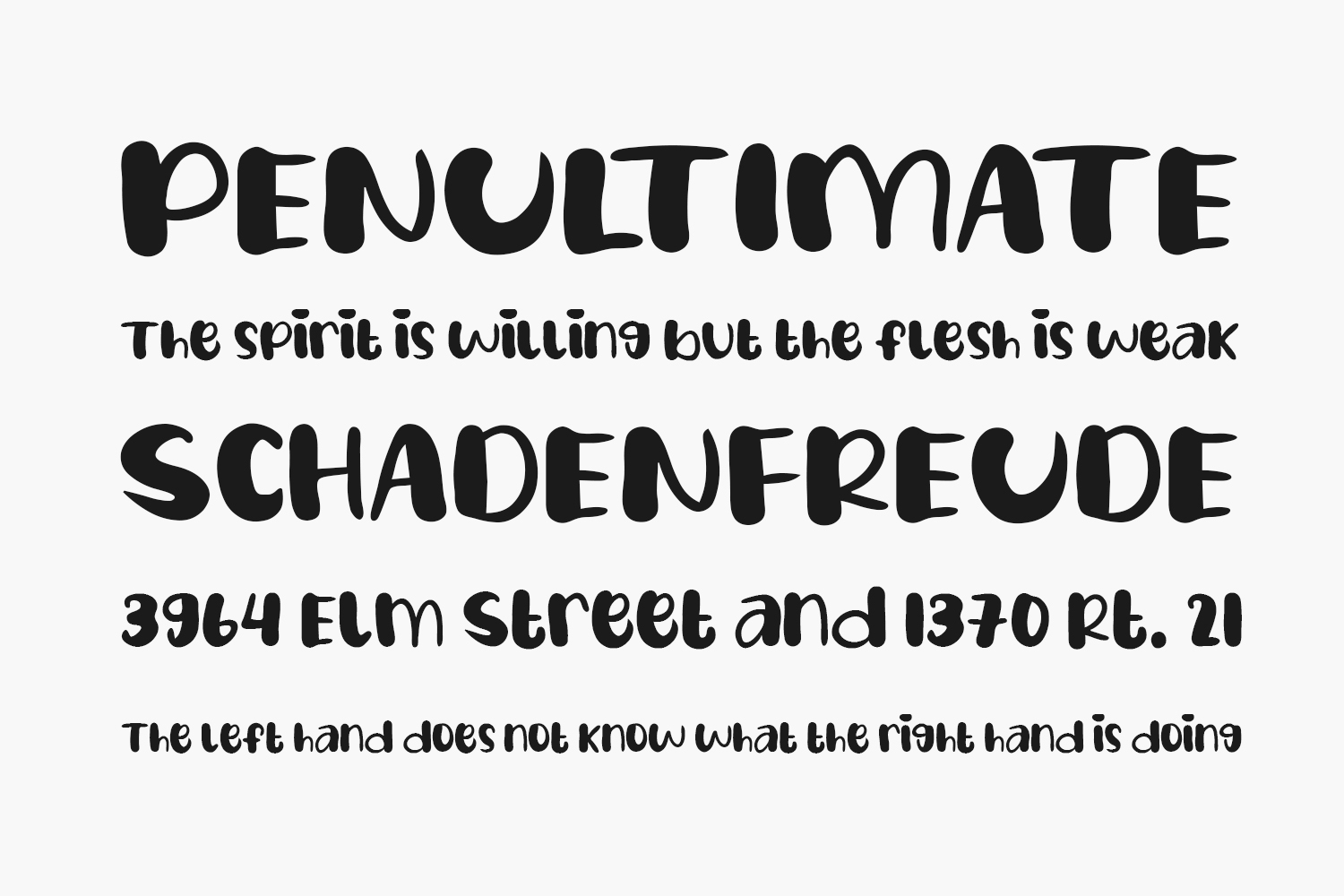
Oktober
Introducing Oktober Free Font, a delightful and approachable handwritten font. This font exudes warmth, romance, and joy, infusing each of your project ideas with artistic flair. With Oktober, your creations will transform into captivating works of art. Unleash your creativity and have a blast exploring the myriad of variations this beautiful font offers. Get ready to embark on a fun-filled journey with Oktober and bring your designs to life with its playful charm and endless possibilities. Oktober Free Font is free for personal use only. Please purchase the full version for commercial use.